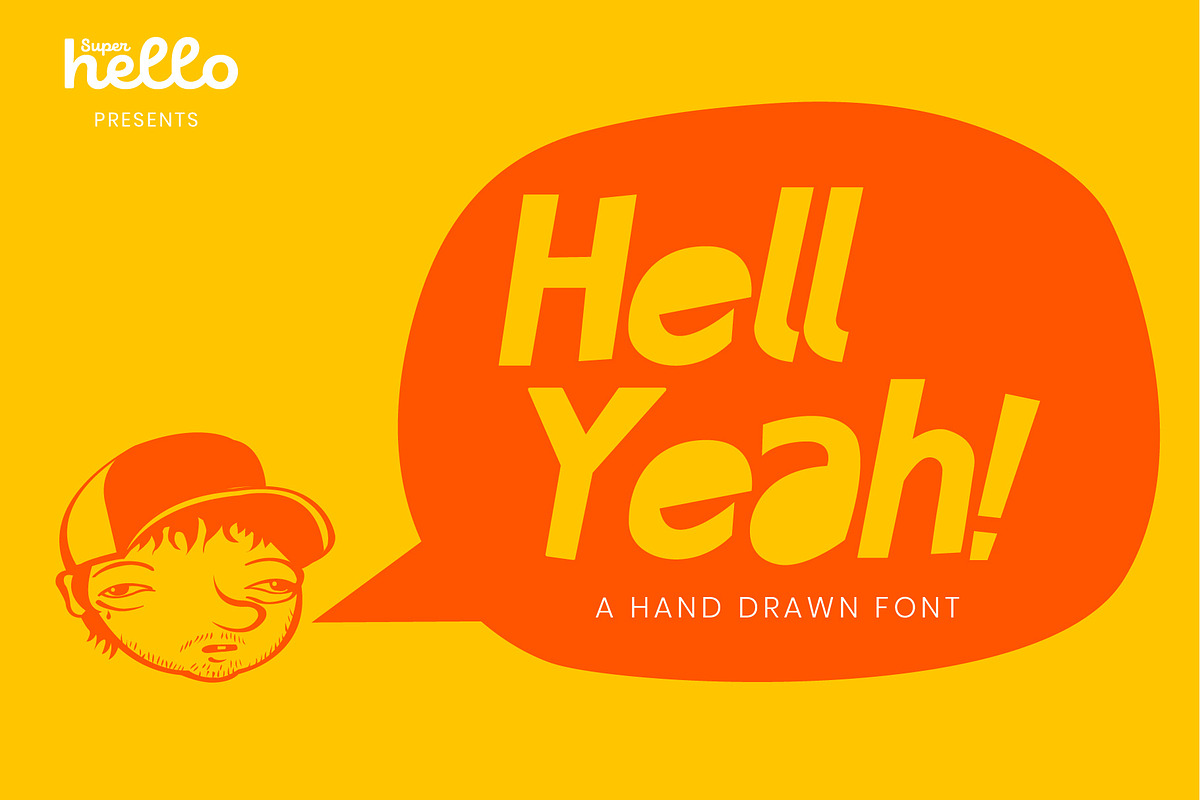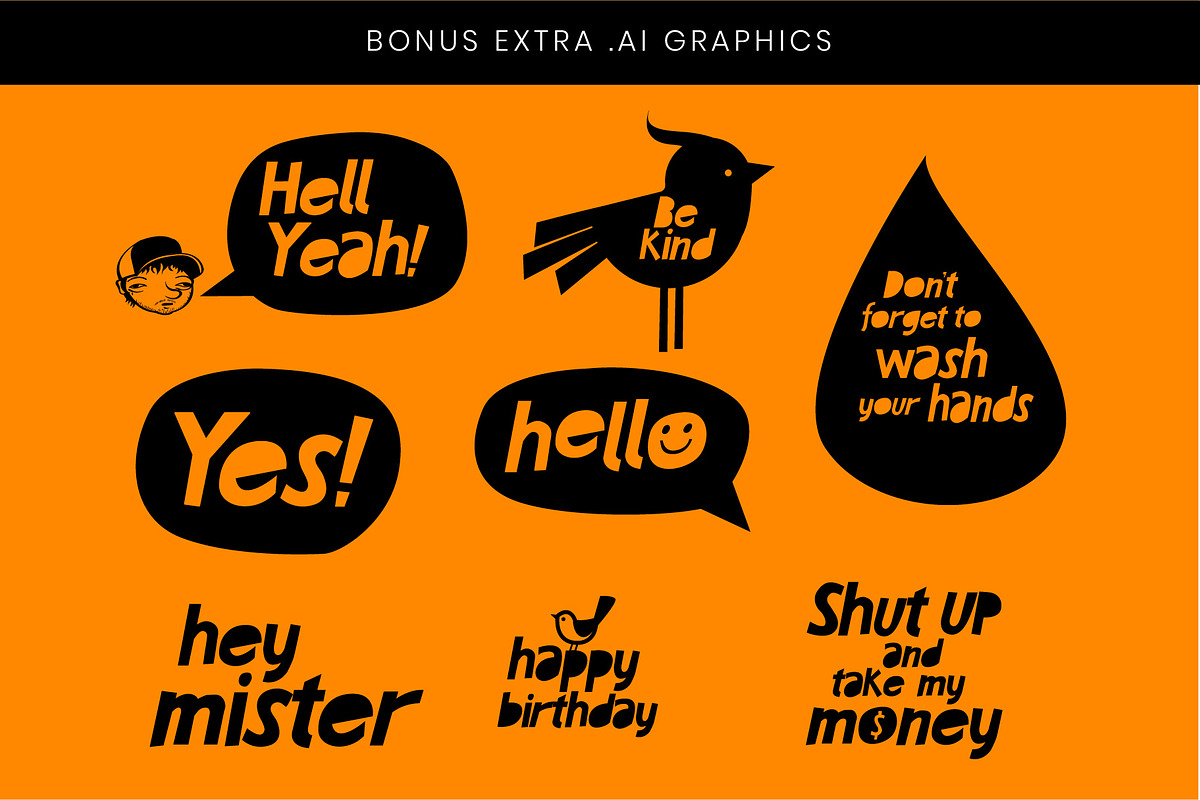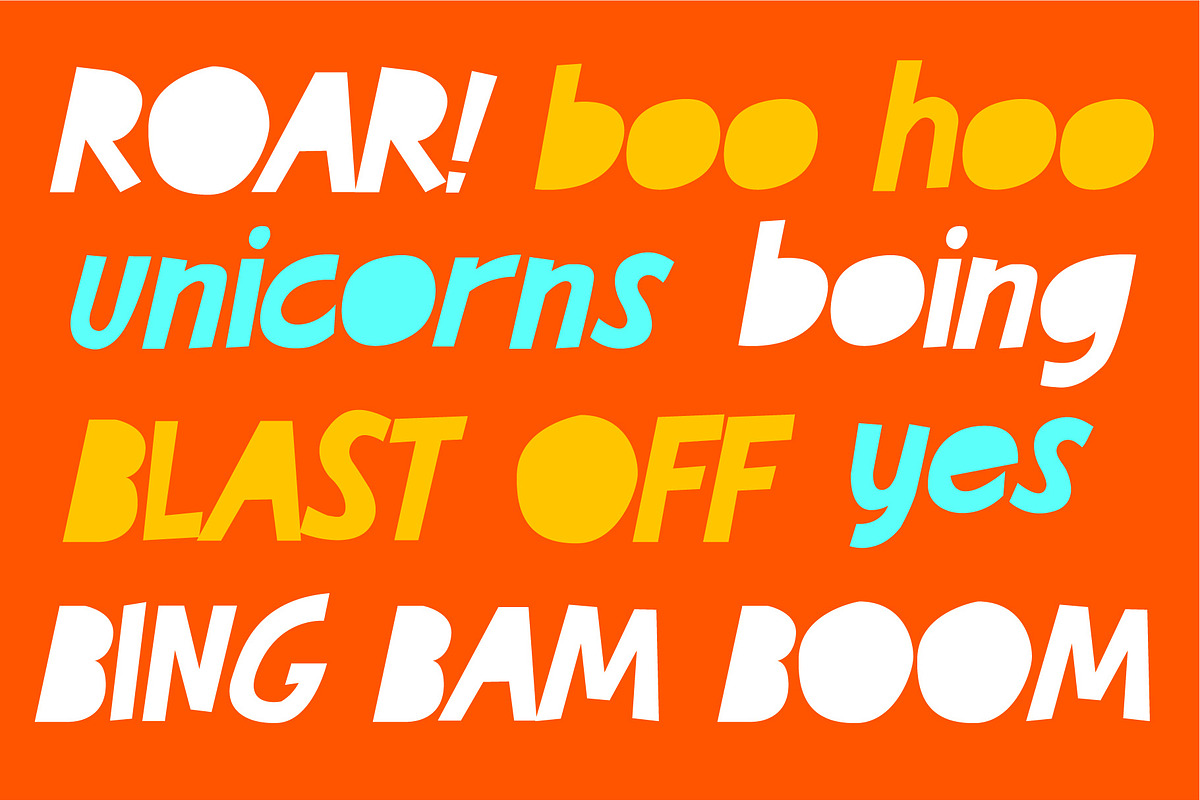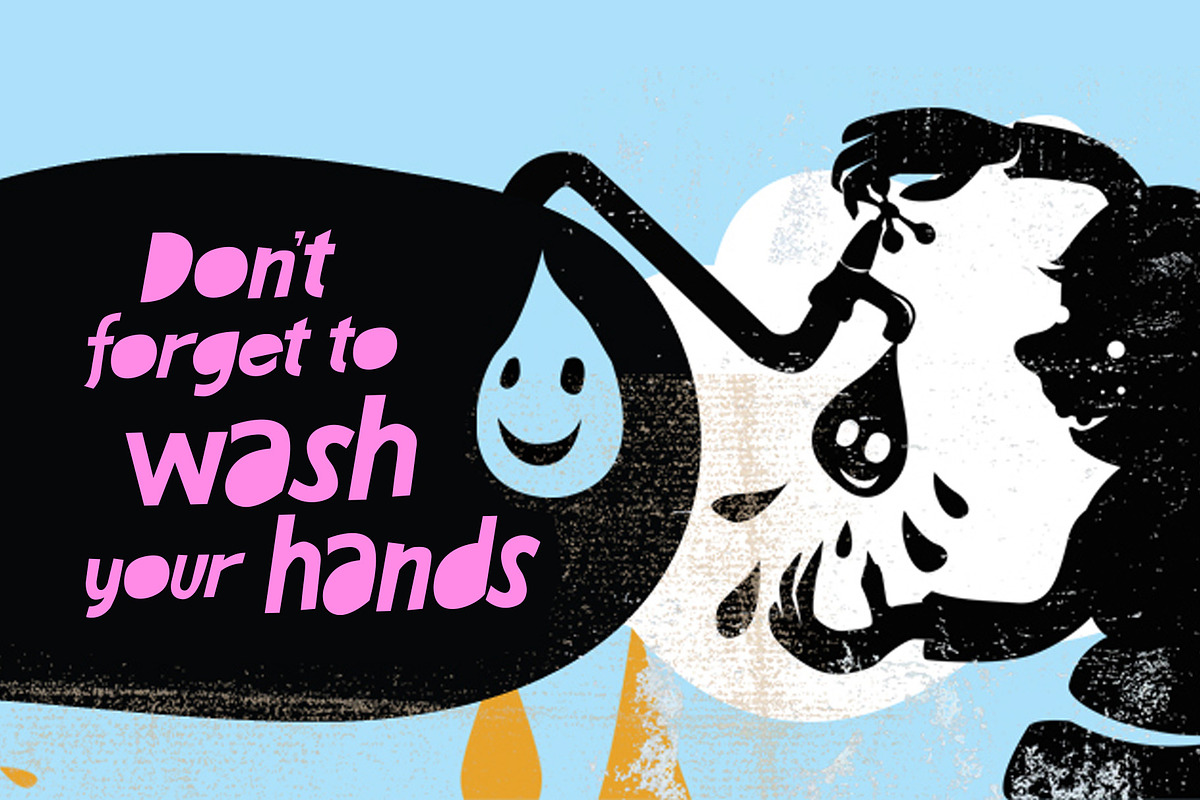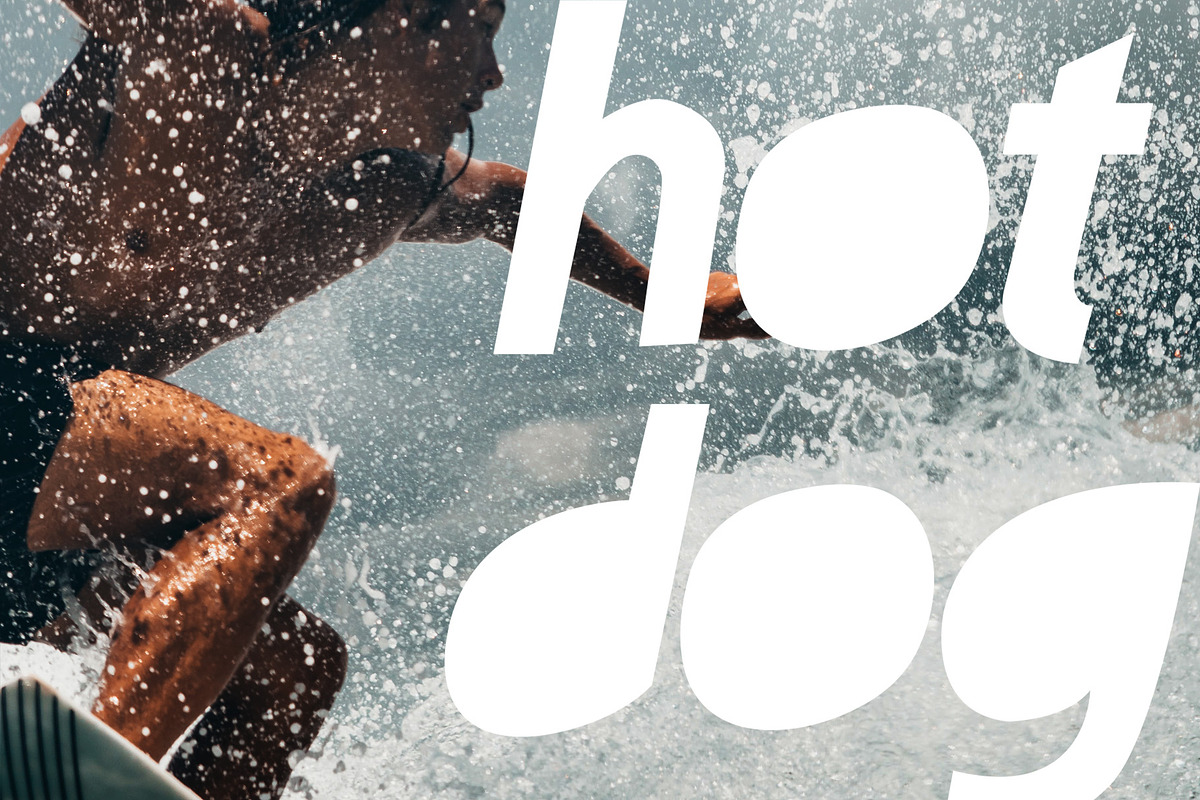
Hell Yeah - Hand-drawn Font
A loose, fun and hand-drawn font designed for headlines and call outs. This font mixes well with illustrations and handcrafted styles.
Hell Yeah - Hand-drawn Font by Super Hello fits naturally into Branding, posters, packaging, typography.